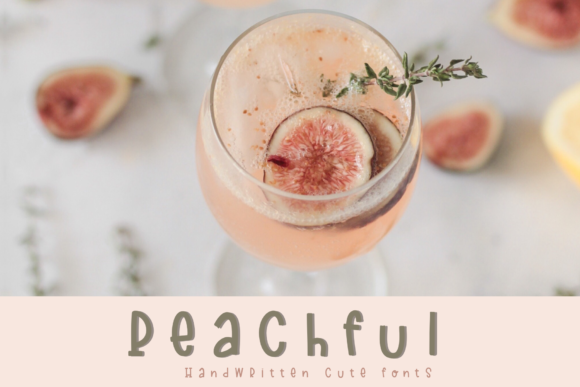
Peachful Font: Authentic Script Handwritten Style for Campaigns
Using Peachful Font for Social Media Launch Graphics
Peachful, Script Handwritten styles, and modern Fonts became my go-to toolkit when I was tasked with designing a cohesive visual identity for a recent artisanal skincare launch. The campaign needed to feel intimate and handcrafted, yet professional enough to convert scrollers into customers on Instagram and Pinterest. When preparing the initial mood board, standard display typefaces felt too corporate and detached from the brand’s organic ethos. That is when I introduced Peachful into the workflow. This specific typeface results out of a stunning pairing of a brush pen and pencil that makes it look incredibly endearing and authentic, which was exactly the emotional hook we needed for the teaser phase. Using this gorgeous and unique handwritten font to bring any DIY project to life translates seamlessly into digital marketing because it mimics the personal touch of a founder’s note while maintaining the legibility required for paid ads.
In practical application, I utilized Peachful for the primary headline overlays on our carousel posts. The texture of the brush strokes provided immediate visual contrast against clean product photography, stopping the scroll without screaming for attention. For marketers managing content calendars, this font serves as a powerful pattern interrupt. It signals "human connection" in a feed saturated with AI-generated imagery and rigid sans serifs. However, the strategic value lies in its versatility; it worked equally well for the "Shop Now" story stickers and the longer-form caption headers, creating a unified brand voice across different aspect ratios and platforms.
Peachful Typography for YouTube Thumbnails and Video Covers
Peachful and related Script Handwritten categories offer distinct advantages when designing high-CTR assets like YouTube thumbnails, where Fonts must be readable at small sizes. During a recent video series promotion for a creative workshop, I needed a title treatment that felt energetic but not chaotic. Many script fonts fail here because their intricate swashes become muddy when compressed. Peachful, however, maintains structural integrity even when scaled down for mobile previews. The brush-and-pencil hybrid aesthetic creates natural weight variation, meaning the letters remain distinct against busy video backgrounds or dark overlays.
I specifically used Peachful for emotive keywords in the thumbnail text, such as "Create," "Dream," and "Start." By reserving this expressive typeface for power words and pairing it with a bold, condensed sans serif for secondary information, I established a clear visual hierarchy. This approach ensures that viewers instantly grasp the video's emotional promise before reading the logistical details. For content creators building a recognizable channel identity, consistency in typography is just as vital as color grading. Peachful provides that signature look that helps audiences identify your content in their subscription feeds before they even read the title.
Integrating Peachful into Email Marketing and Web Banners
When incorporating Peachful, Script Handwritten aesthetics, and decorative Fonts into email marketing campaigns, readability and load speed are paramount. In a recent newsletter redesign for a lifestyle brand, we wanted to replace generic header images with typographic treatments that felt bespoke. Peachful was ideal for greeting lines and seasonal announcements because its endearing quality increased perceived warmth. Unlike image-based headers which can trigger spam filters or fail to load, using web-safe fallbacks alongside embedded Peachful graphics ensured the message remained intact. The font’s authentic stroke work helped bridge the gap between digital automation and personal communication, resulting in higher engagement on our personalized segments.
For website banners and landing pages, Peachful functions best as an accent rather than body copy. I have found it exceptionally effective for highlighting limited-time offers or testimonial pull quotes. The key is moderation; let the font breathe with ample negative space to preserve its delicate details. When used strategically in web design, it guides the user’s eye toward conversion points by breaking up the monotony of grid-based layouts. Just ensure you are checking commercial font licensing before deploying it on high-traffic domains to protect your brand assets.
Font Pairing Strategies with Peachful for Brand Consistency
Peachful pairs beautifully with minimalist sans serif Fonts to balance its expressive Script Handwritten character within a broader design system. In my campaign workflows, I never use Peachful in isolation. To maintain professional credibility, I anchor it with a geometric sans serif like Montserrat or a clean serif like Merriweather. This juxtaposition amplifies Peachful’s charm while ensuring functional information remains accessible. For example, in a promotional flyer for a pop-up market, Peachful handled the event name and tagline, while a neutral sans serif communicated dates, locations, and pricing. This division of labor prevents visual fatigue and ensures the design serves both aesthetic and informational goals.
Consider the following pairing guidelines when integrating Peachful into your next project:
- Contrast Weight: Pair Peachful’s variable brush strokes with uniform, monolinear typefaces to create tension and focus.
- Hierarchy Definition: Use Peachful strictly for H1s, logos, or callouts; reserve structured fonts for H2s, body text, and UI elements.
- Color Coordination: Let Peachful carry the brand’s primary accent color while supporting text remains neutral to maximize impact.
- Spacing Adjustments: Avoid tightening tracking on Peachful; its natural rhythm requires standard or slightly open spacing to retain authenticity.
Optimizing Peachful Readability for Mobile Ads and Stories
Peachful, like all premium Script Handwritten typefaces, requires careful optimization when adapting Fonts for vertical video and mobile-first ad formats. During a TikTok and Reels campaign, I discovered that Peachful’s pencil-textured edges could get lost against low-contrast backgrounds. The solution was adding subtle drop shadows or placing text within semi-transparent containers. This technical adjustment preserved the font’s endearing nature while meeting accessibility standards. Remember that mobile users scan content rapidly; if Peachful is illegible at a glance, it fails its purpose regardless of its beauty.
Organize your font files systematically within your team’s shared drive. Tag Peachful with relevant metadata like "brush script," "organic," "feminine," and "display" so designers can locate it quickly during fast-paced production cycles. If working with external freelancers, provide them with licensed copies rather than assuming they own it. Proper asset stewardship ensures that Peachful remains a sustainable part of your creative arsenal, ready to elevate future launches, seasonal sales, and branded content series with consistent, legally compliant excellence.